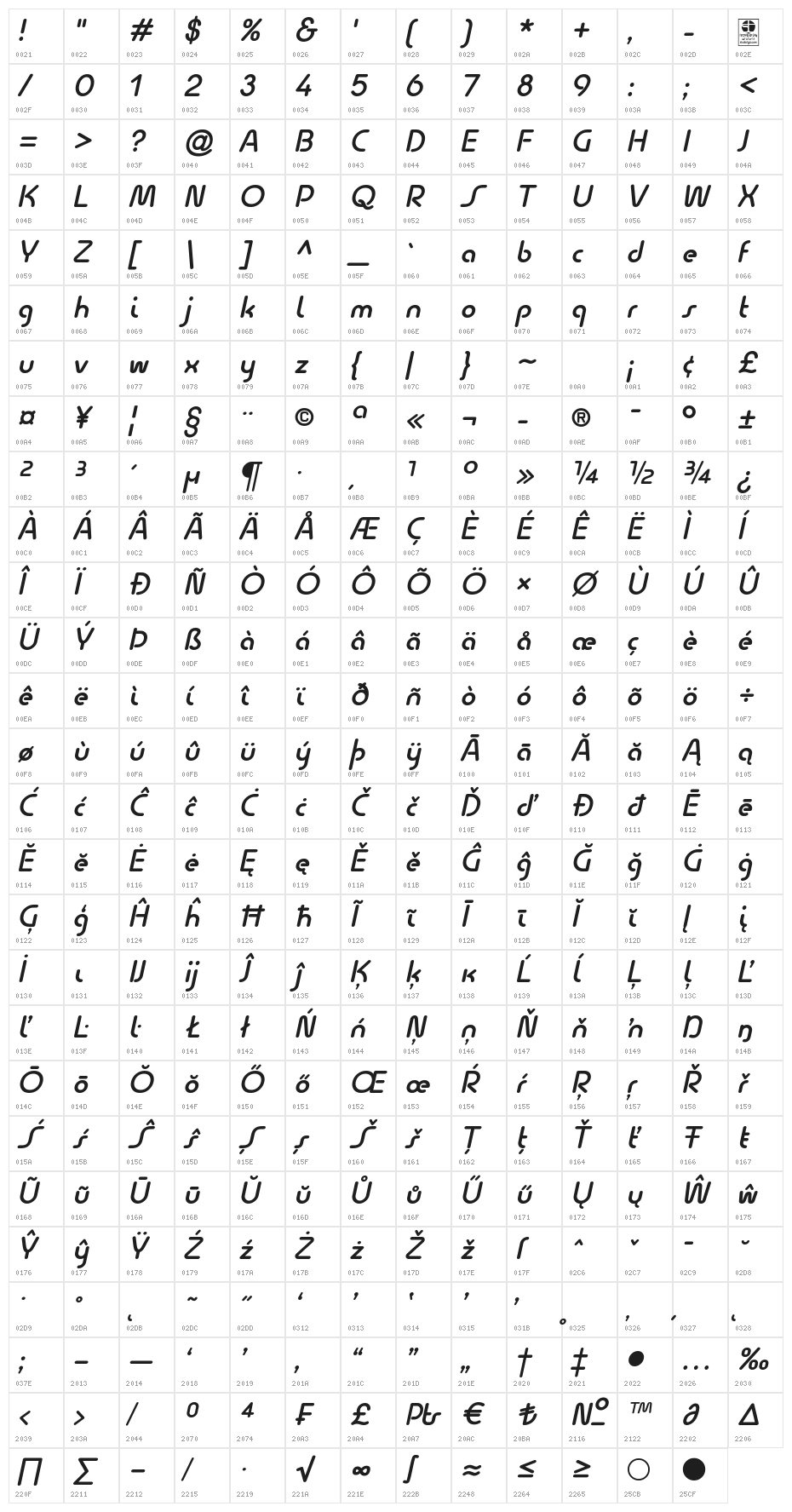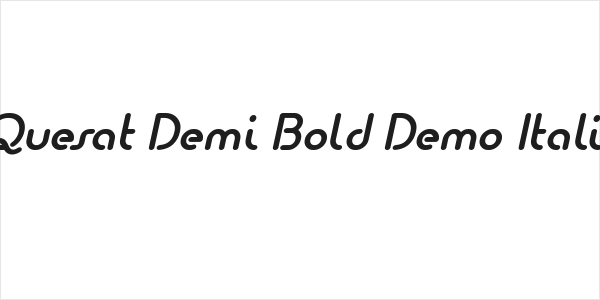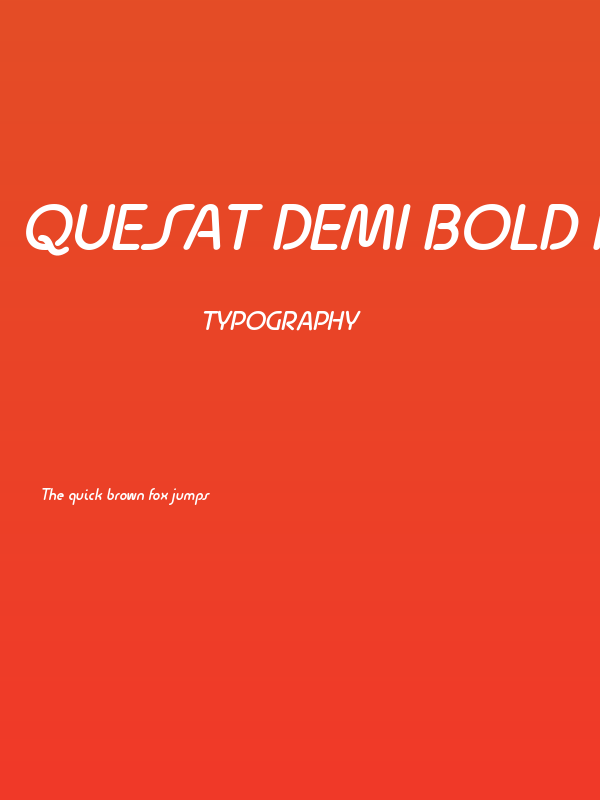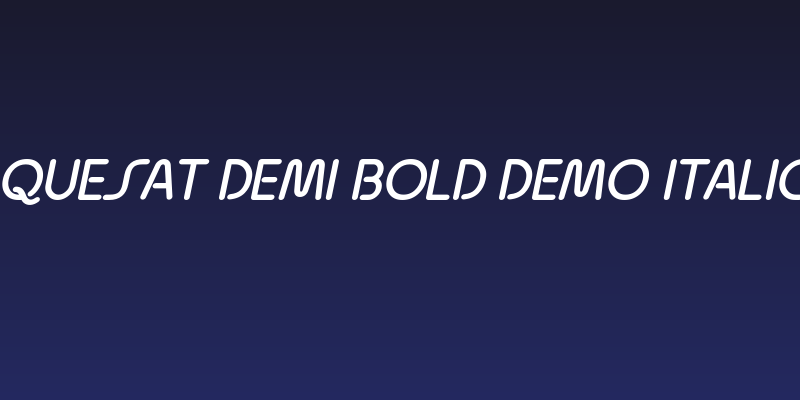
Quesat Demi Bold Demo Italic Font
Quesat Demi Bold Demo Italic Description
This font features a smooth, rounded style with a playful and modern aesthetic. The characters are slightly italicized, giving them a dynamic and fluid appearance. The strokes are consistent in thickness, providing a uniform look across all characters. The uppercase letters are bold and prominent, while the lowercase letters maintain a friendly and approachable feel. The numerals are clear and easy to read, matching the overall style of the alphabet. Special characters are well-integrated, maintaining the same rounded and cohesive design.